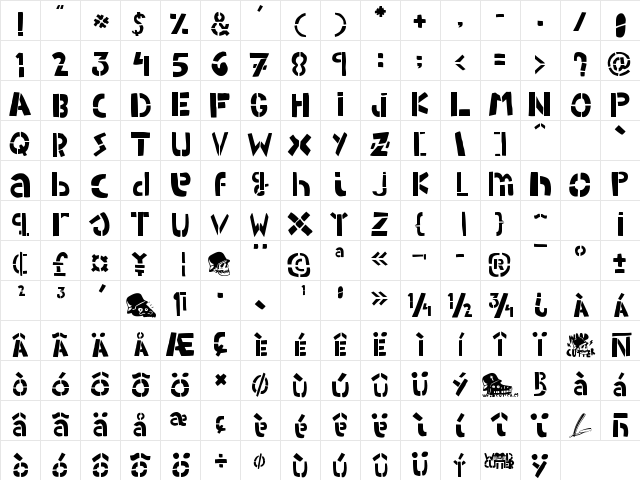
WOODCUTTER ARMY (Stencil) Regular
Design Context for WOODCUTTER ARMY (Stencil) Typeface
WOODCUTTER ARMY (Stencil) has the no-nonsense character of military stencilling and tactical signage, projecting authority and directness.
Designed for tactical branding, military-inspired apparel, action game UI, and utility-focused signage.